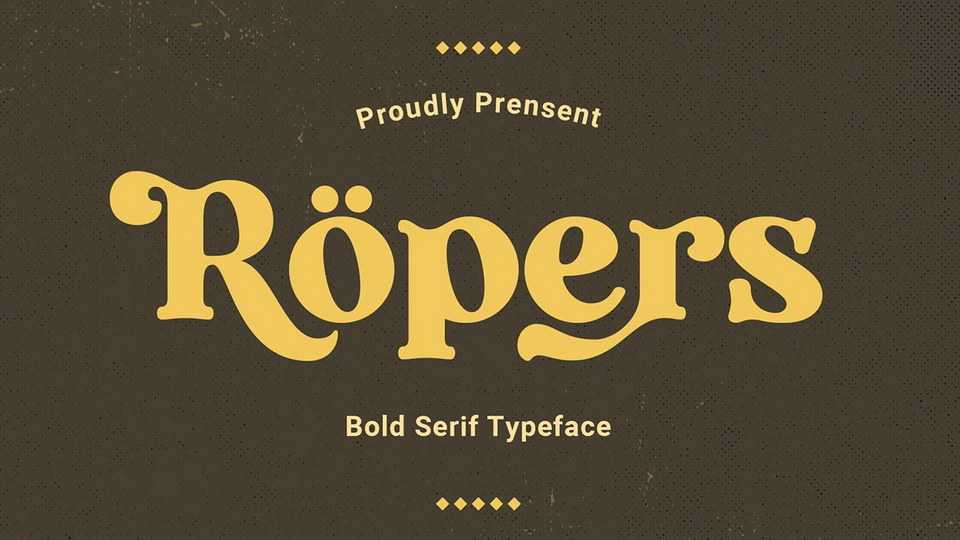
Download Ropers font, a bold serif typeface designed to use in mid-tones harmonic. The stark contrast of the bold and wondrous uppercase of Ropers serif balances calmly to mix matches your works.
Designer: Ardyana Types